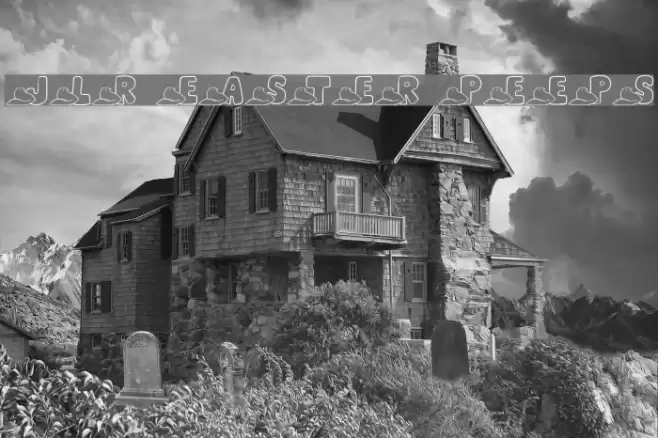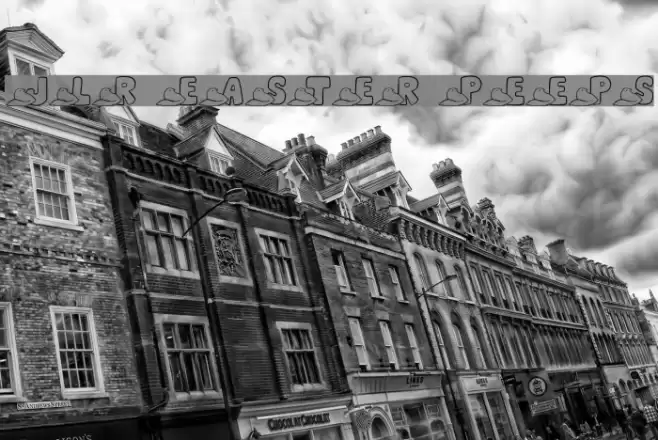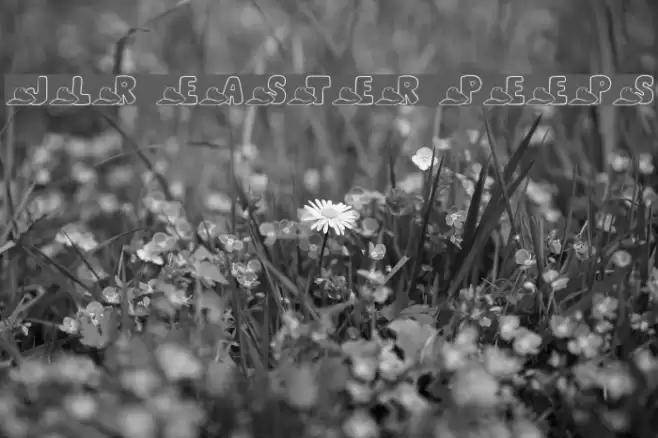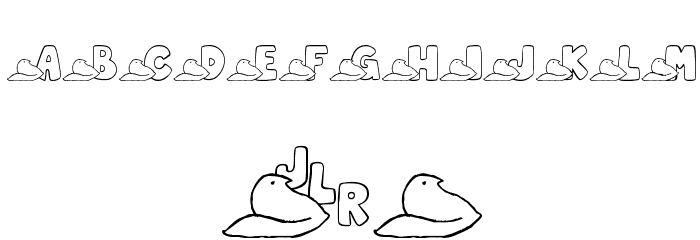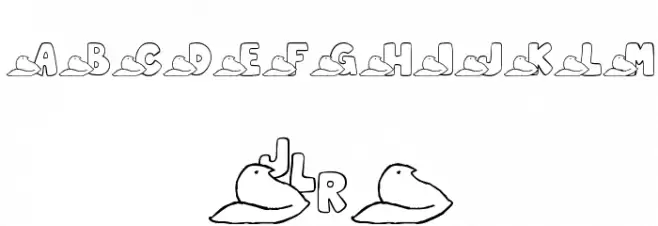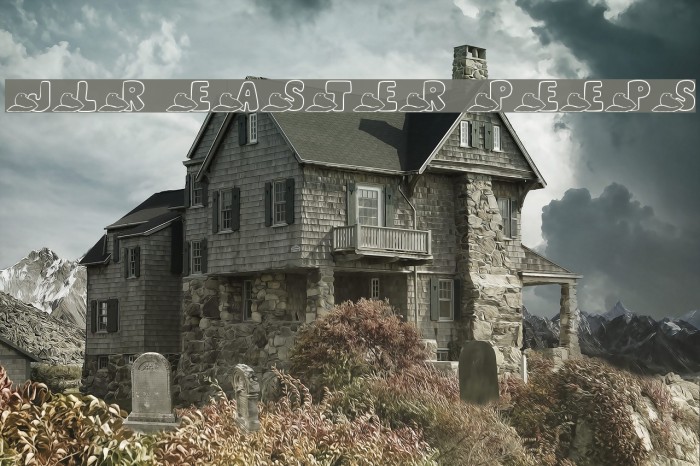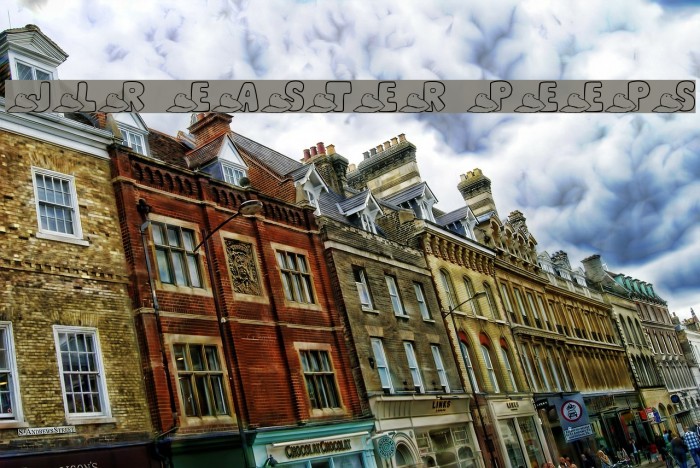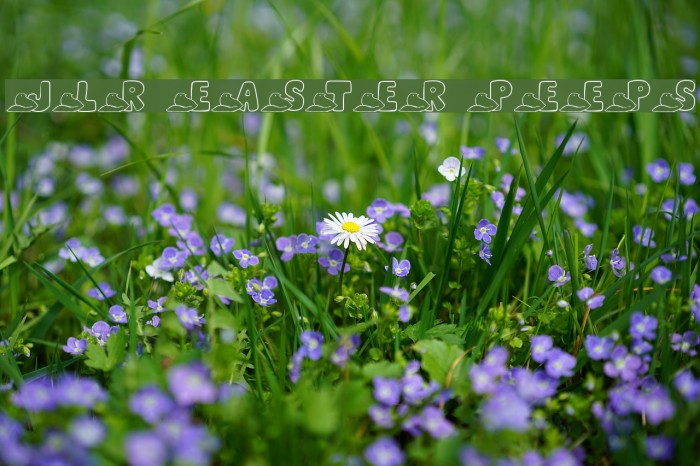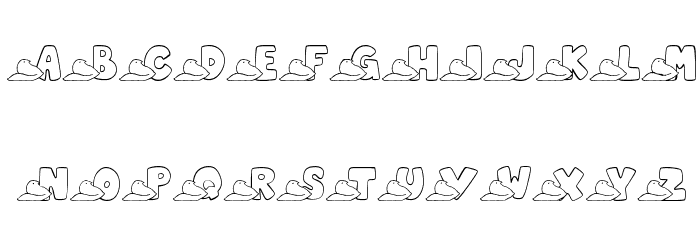
JLR Easter Peeps Font
JLR Easter Peeps Description
This playful and whimsical font features bold, uppercase letters integrated with charming peep-shaped designs, reminiscent of Easter treats. Each letter is uniquely crafted to include a peep silhouette, adding a festive and fun touch to the typography. The font is outlined, allowing for creative coloring and customization. Its decorative style makes it ideal for holiday-themed projects, particularly those related to Easter or springtime celebrations. The font's design is both eye-catching and delightful, perfect for adding a touch of joy and creativity to any project.
A playful, peep-themed decorative font ideal for Easter projects from Uncategorized fonts.
- Proposed Projects: Easter cards, festive banners, children's party invitations, holiday-themed posters.
- Use Case: Headlines, Logos, Decorative text